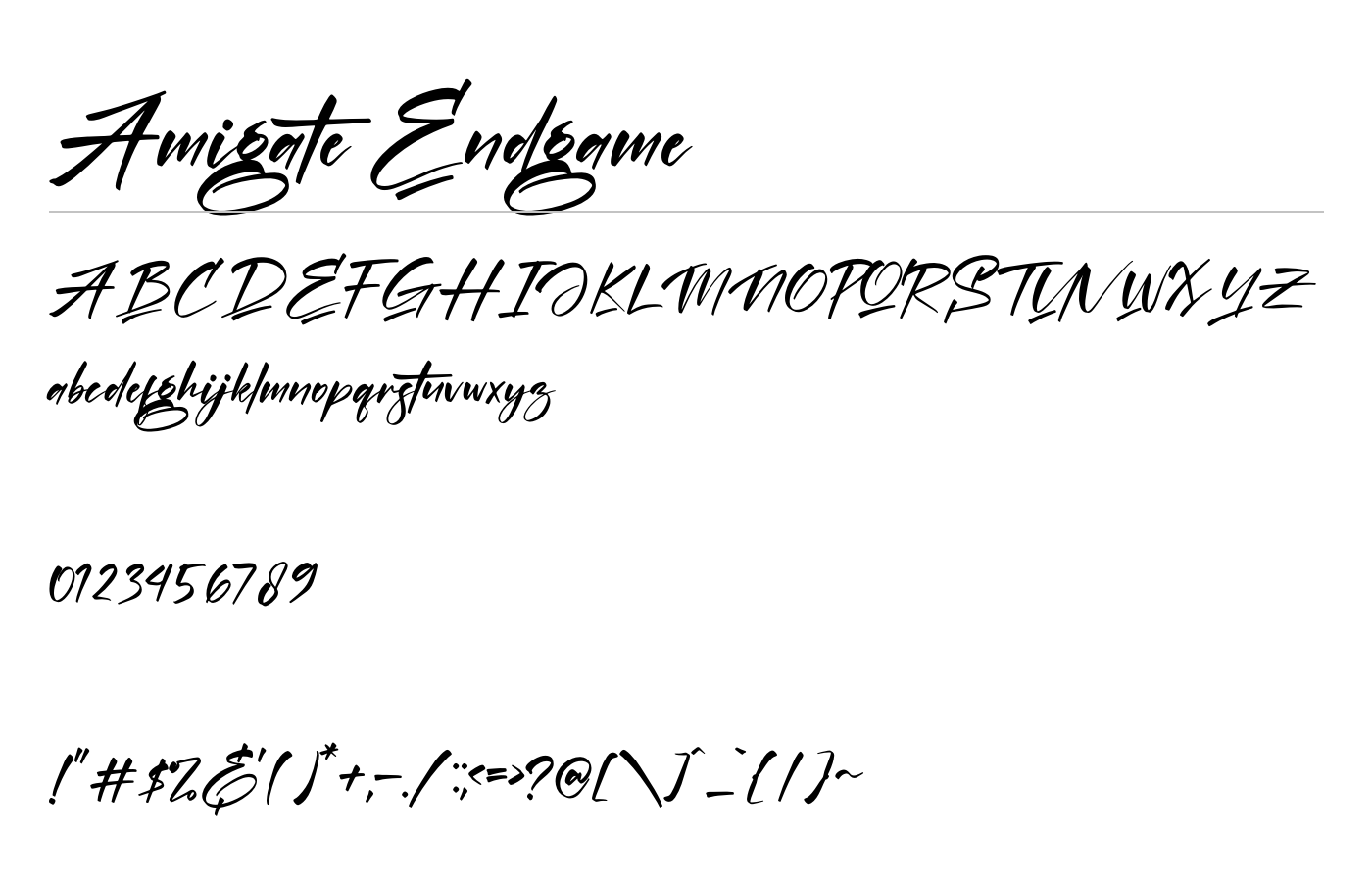
Amigate Endgame is a stylish script font that exudes a casual yet sophisticated handwritten vibe with its flowing, brush-like strokes and dynamic contrasts. Its lively, slightly slanted letterforms and elegant swashes make it ideal for creative branding, invitations, and headline use where personality and flair are key. This font works beautifully in designs that want to convey a modern, artistic, and approachable feel.
Amigate Endgame Font
About Amigate Endgame Font